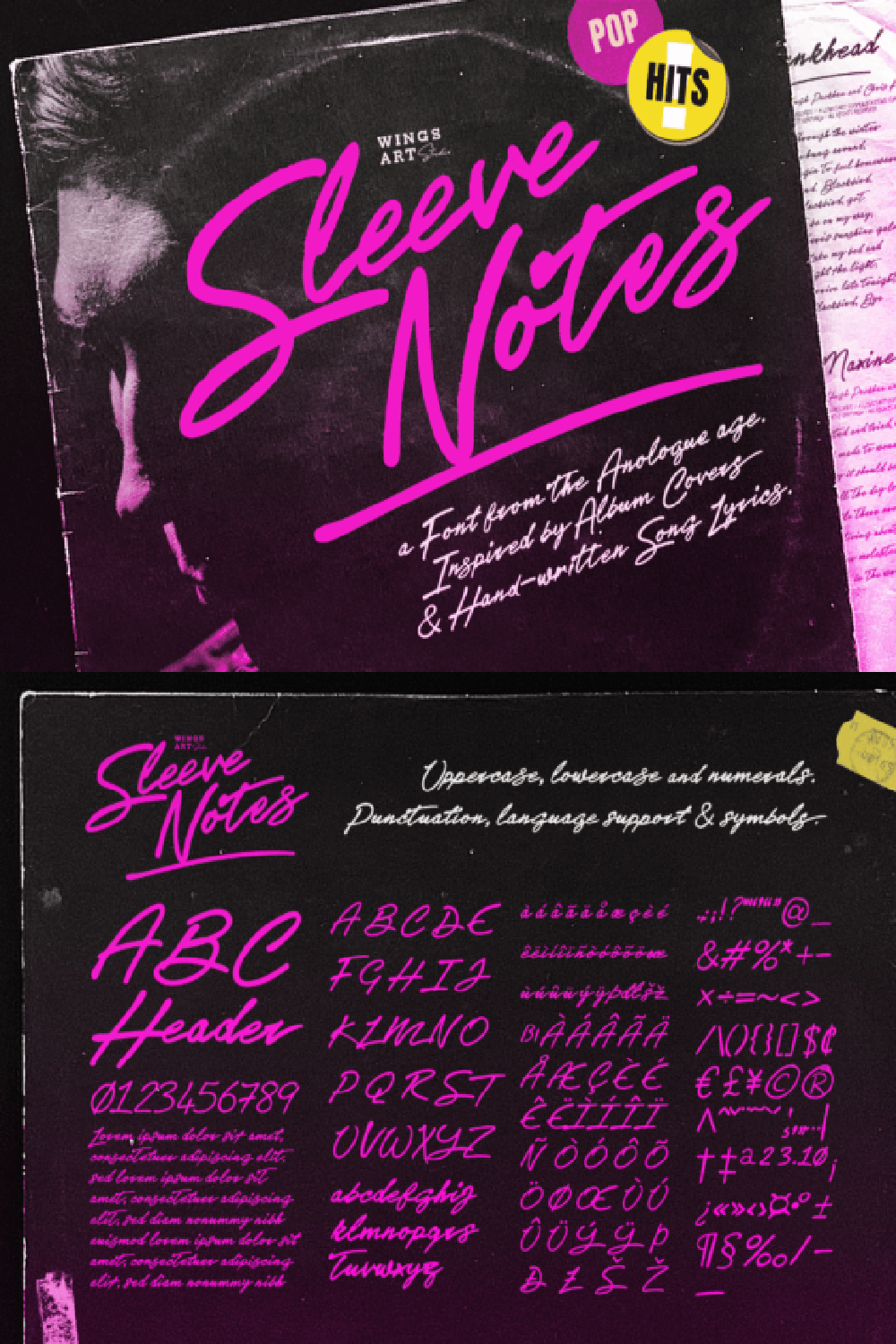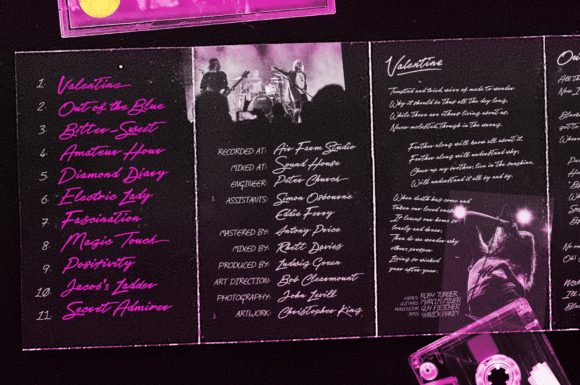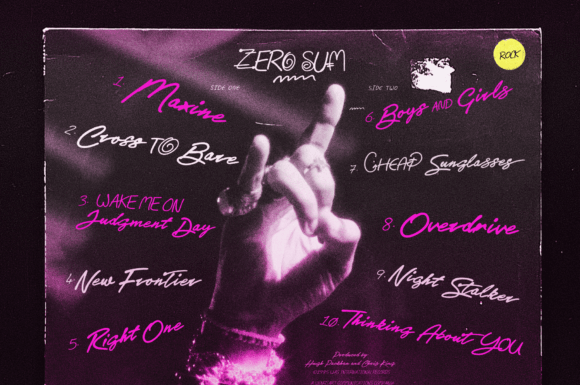
Sleeve Notes Font: Retro Handwritten Script for Creative Designs
About the Sleeve Notes Font
Presenting Sleeve Notes Font, a unique and stylish typeface that will make your work stand out. Sleeve Notes is an experimental script font and all-caps pair with a loose hand-written style that explores the golden age of record stores, vinyl albums, cassettes, and CDs. This font embraces its subtle ink blotches and rough edges.